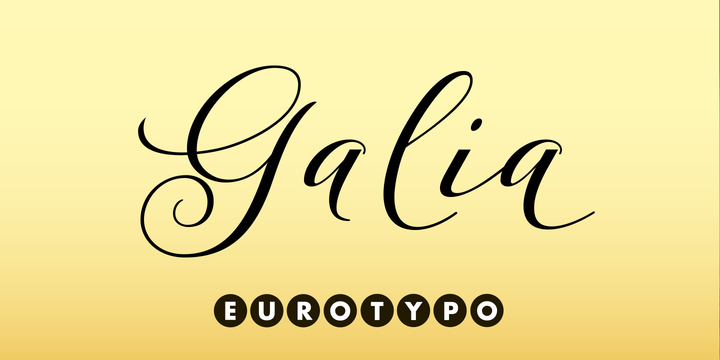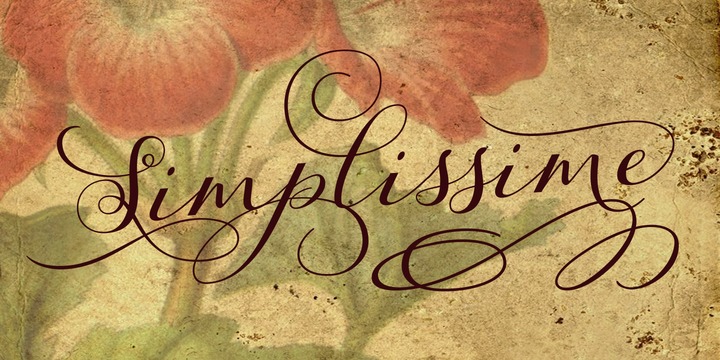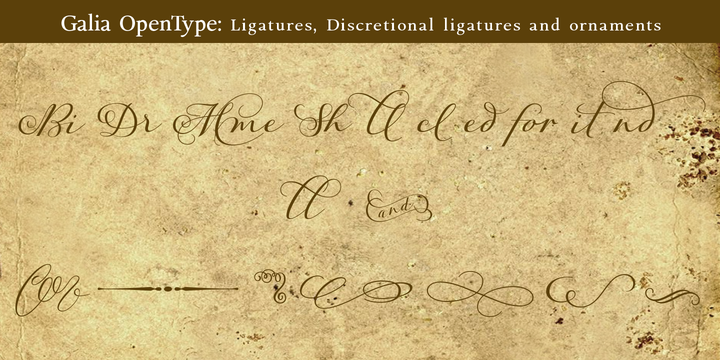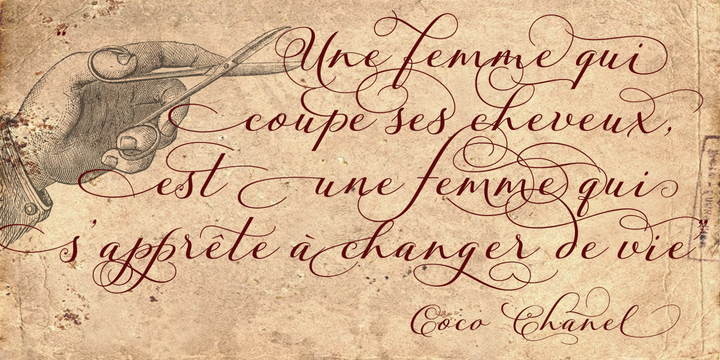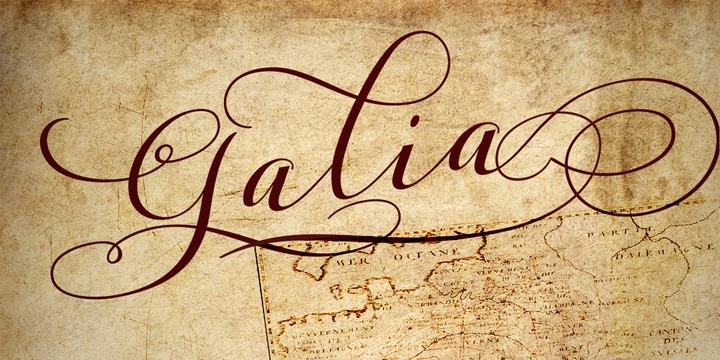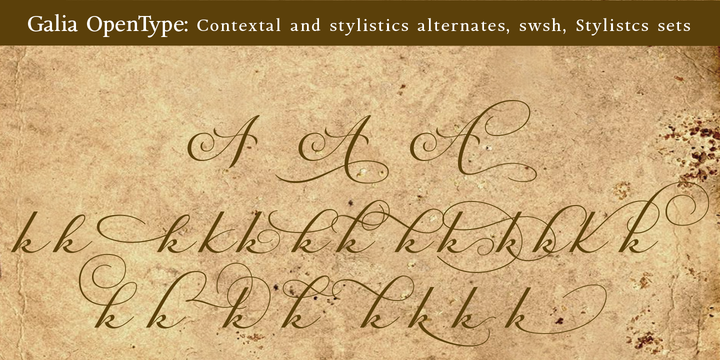
Galia Font
Galia is a new font with a vintage character designed by Carine de Wandeleer, inspired by the beautiful look of Victorian calligraphy, capturing all the elegance of its flourishes.
Galia has a variety of ornamental swash letters; hundreds of ornamental and descending ascenders allow a beautiful interaction of strokes and combinations, avoiding overlaps or conflicts. Galia has a total of 947 characters, in OpenType format, such as Stylistics and Contextual Alternatives, Swashes, Ligatures, up to twenty stylistic games by lowercase and three in the uppercase, which allow you to mix and match pairs of letters, in addition to a wide set of ornaments perfect for interacting with the text. To this, we add a support of central European language to adjust your design. This will help your creativity and make it easier to do the impressive and elegant typographic work. All OpenType features can be accessed through OpenType compatible applications or the character map to view and copy any of the additional characters you want to paste into your favorite text editor / application.